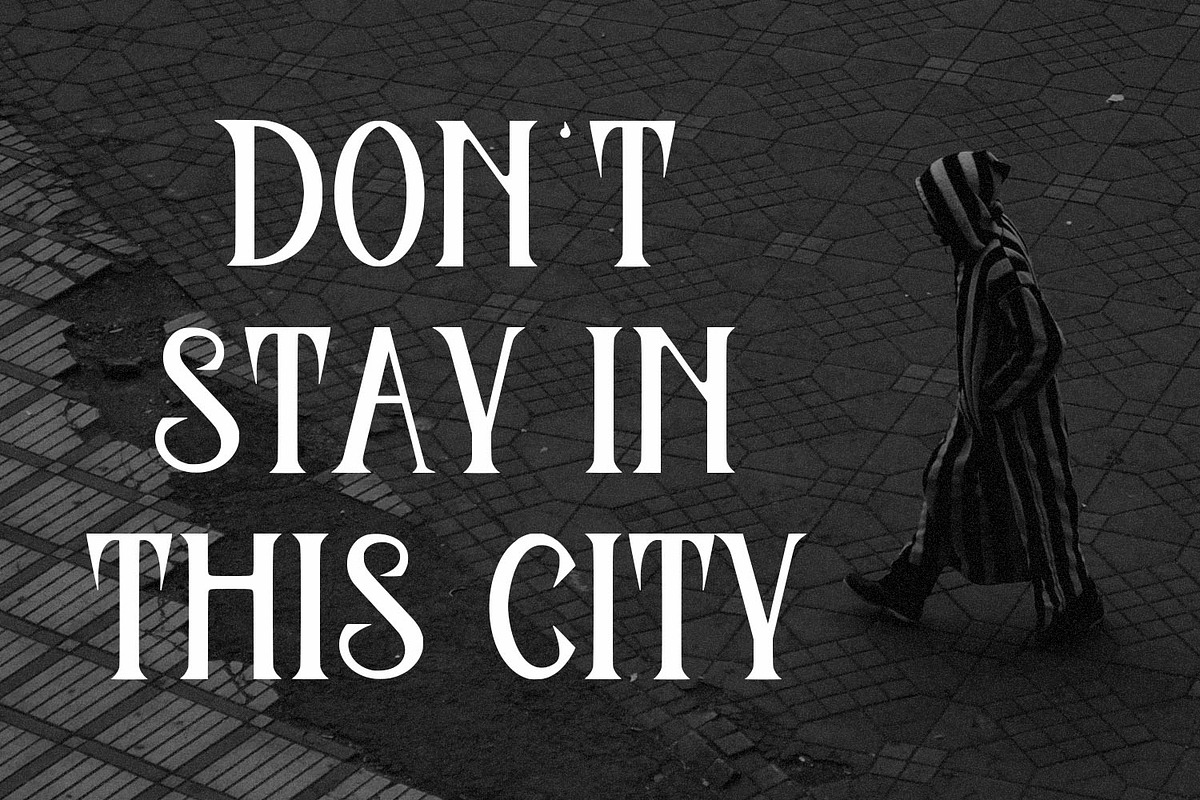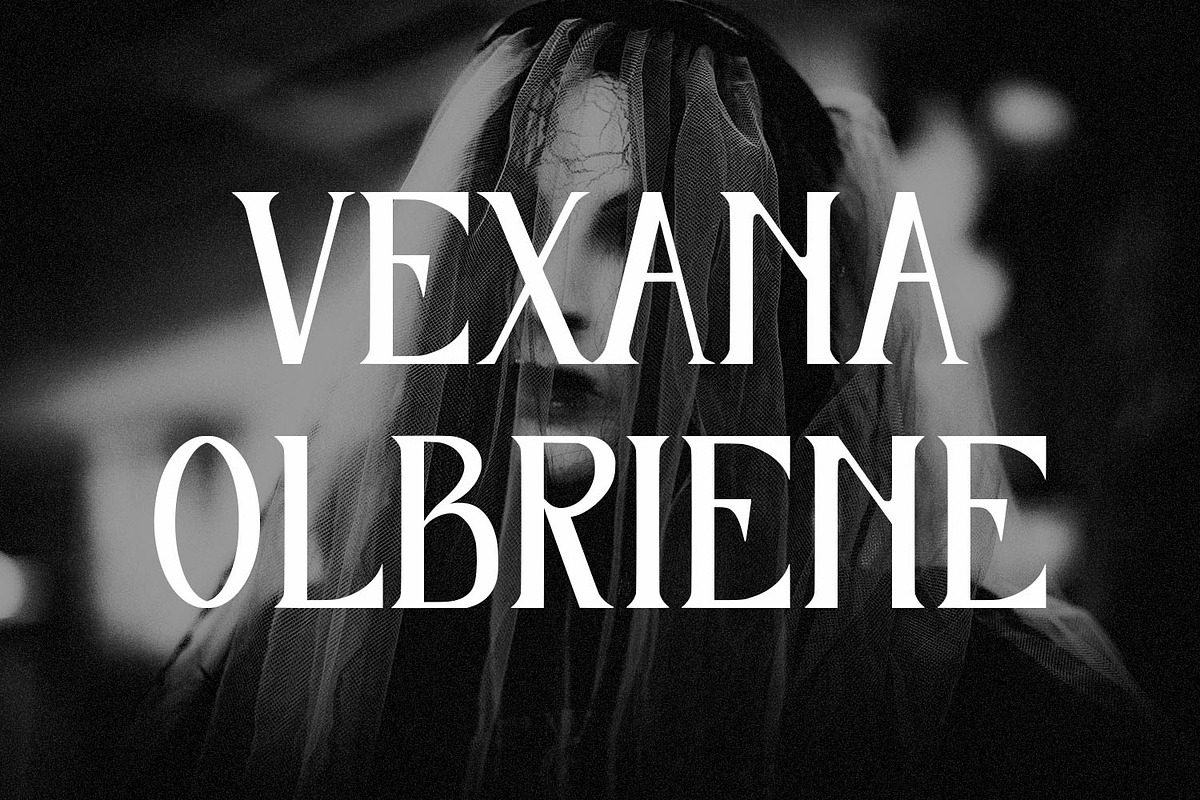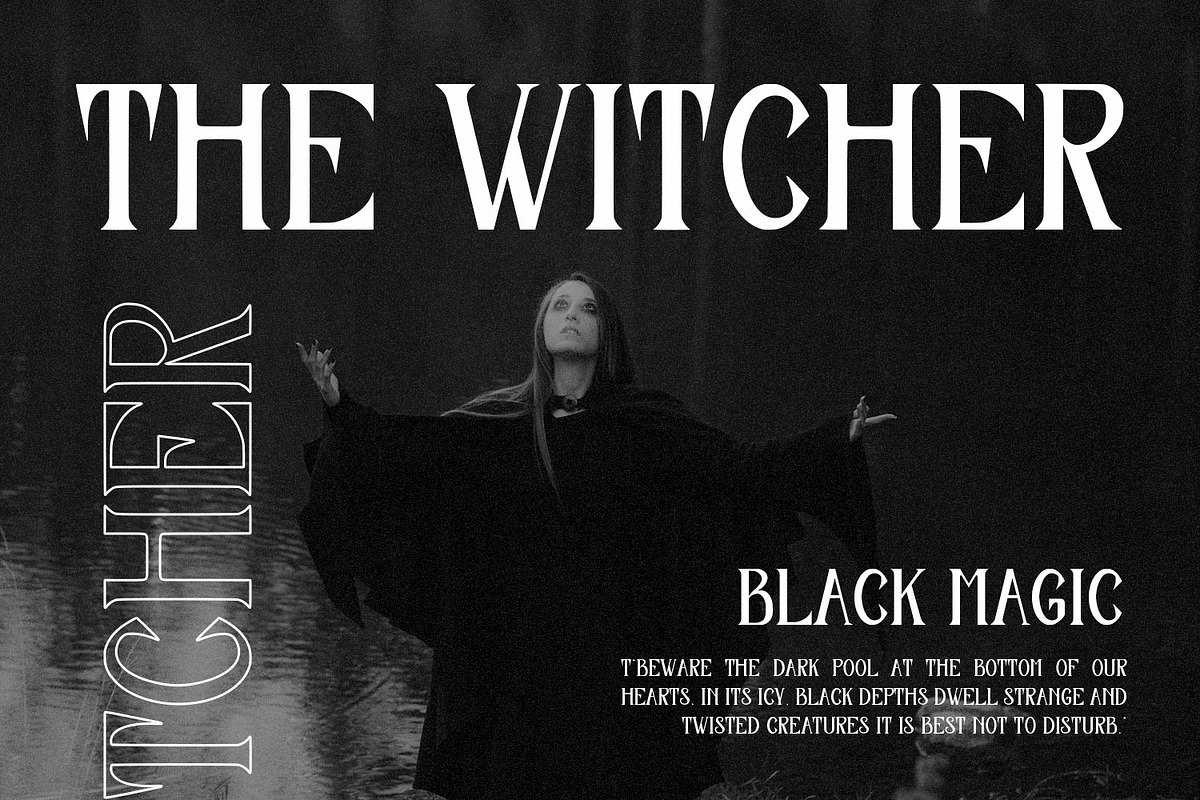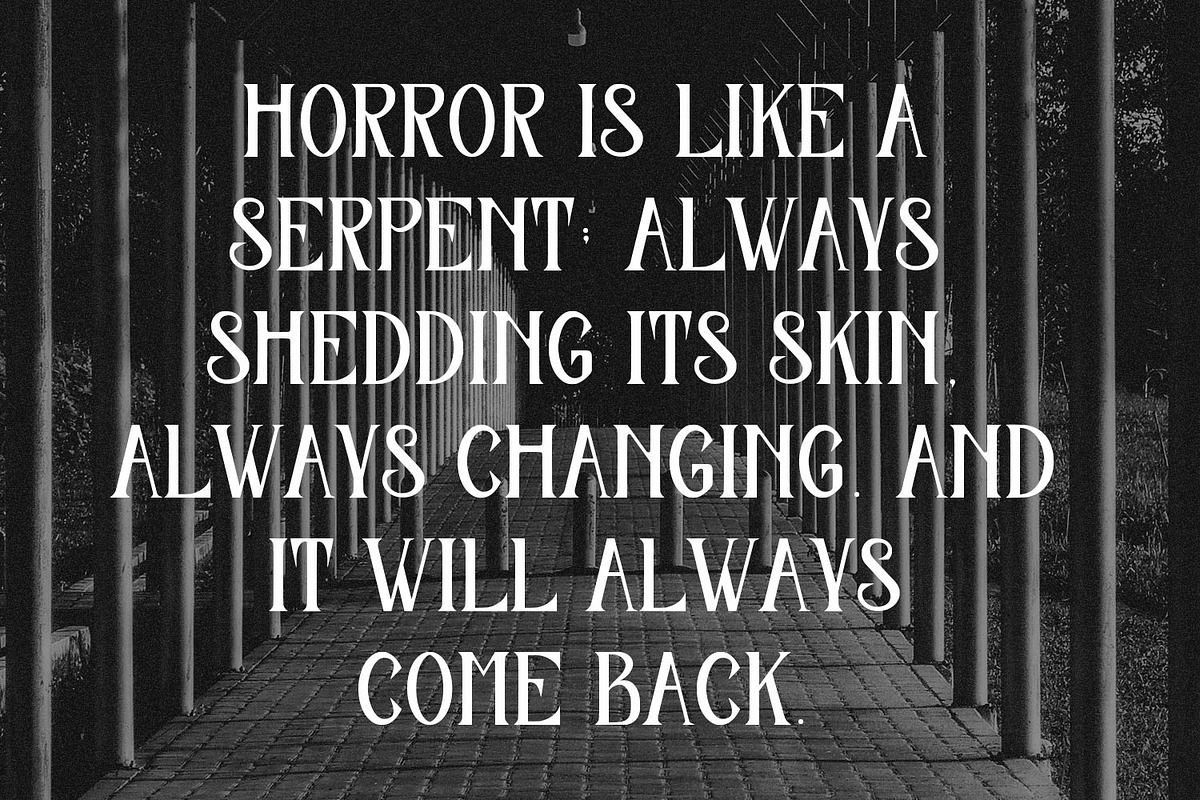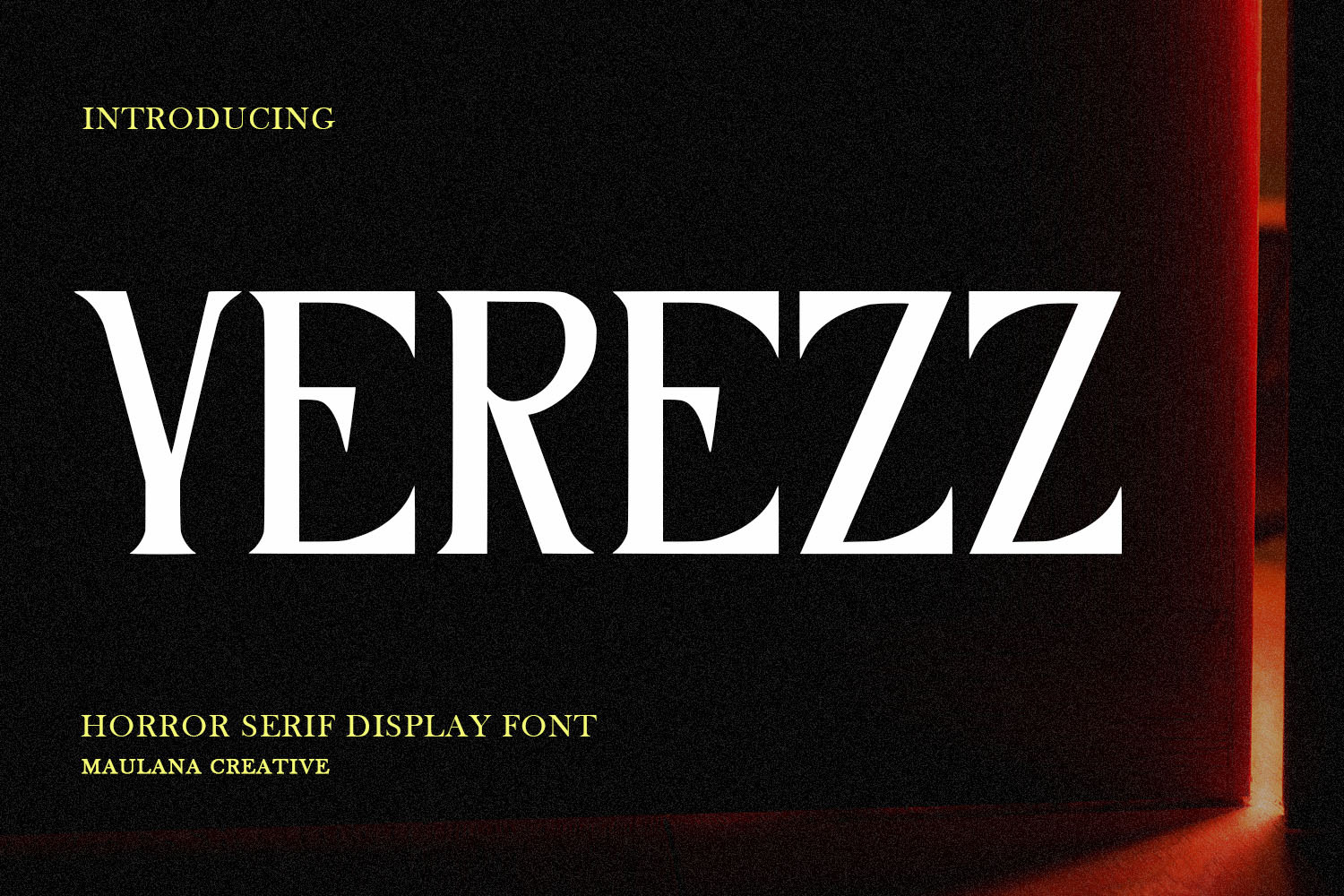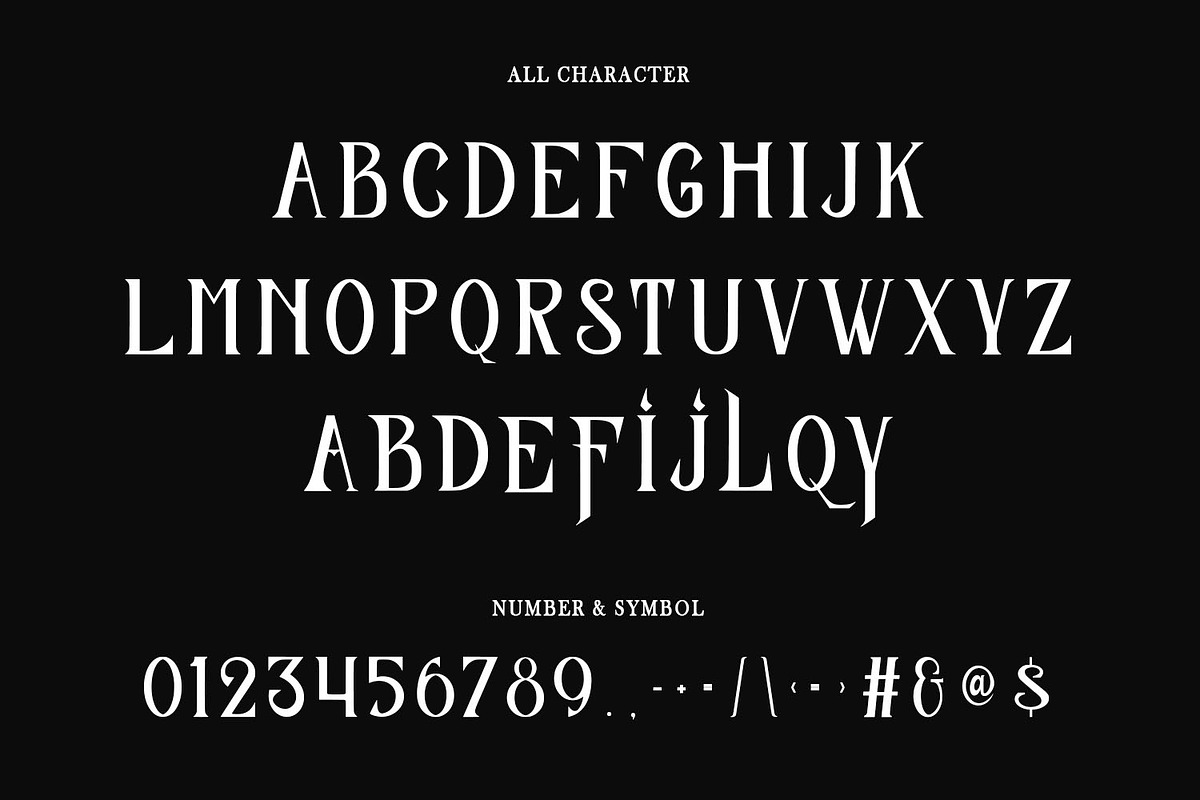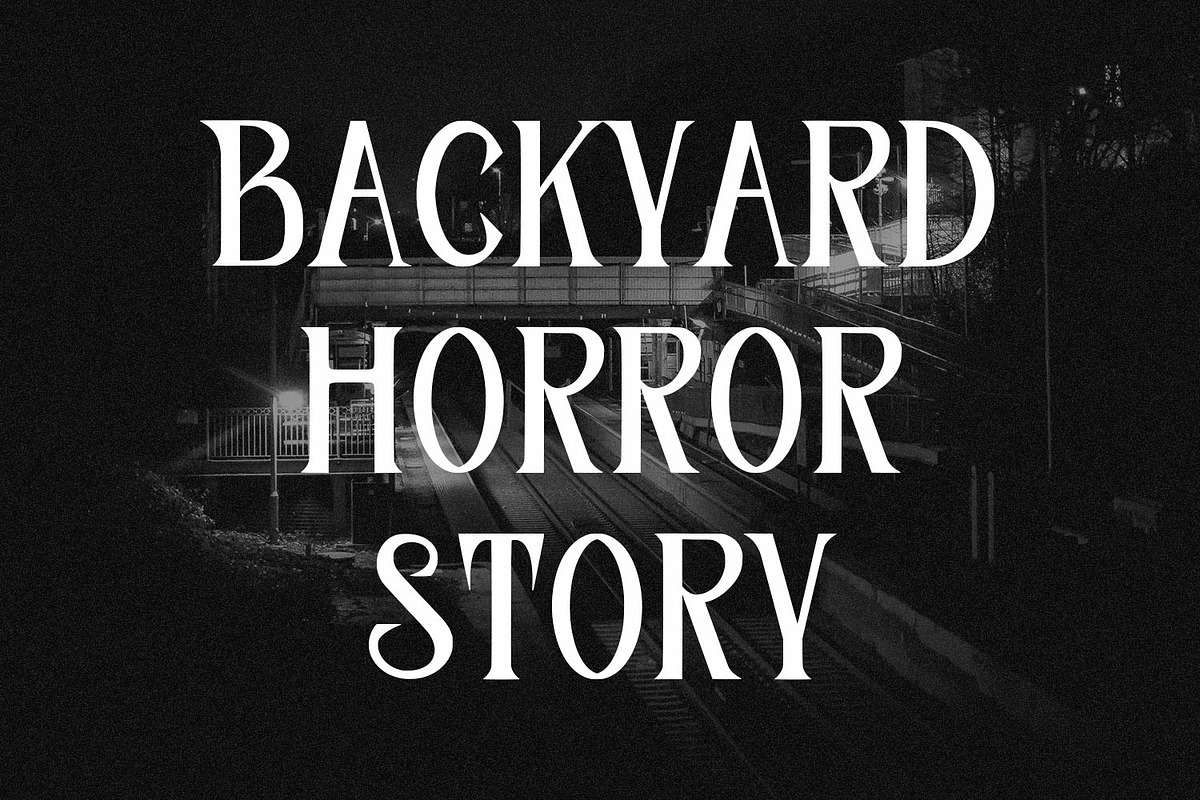
Yerezz Serif Display Font
Yerezz serif display font. Heavy stroke, fun character with a bit of ligatures. To give you an extra creative work. Yerezz serif display font support multilingual more than 100+ language. This font is good for logo design, Social media, Movie Titles, Books Titles, a short text even a long text letter and good for your secondary text font with script or serif. Make a stunning work with Yerezz serif display font.